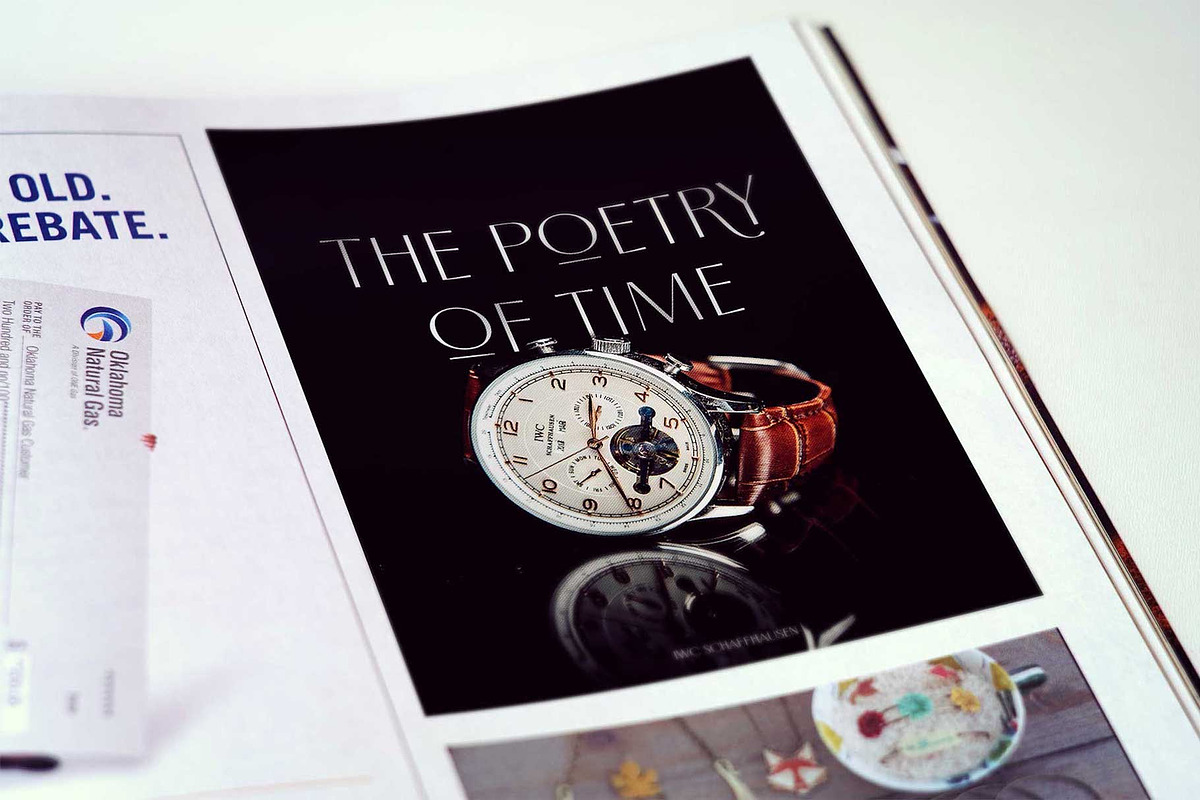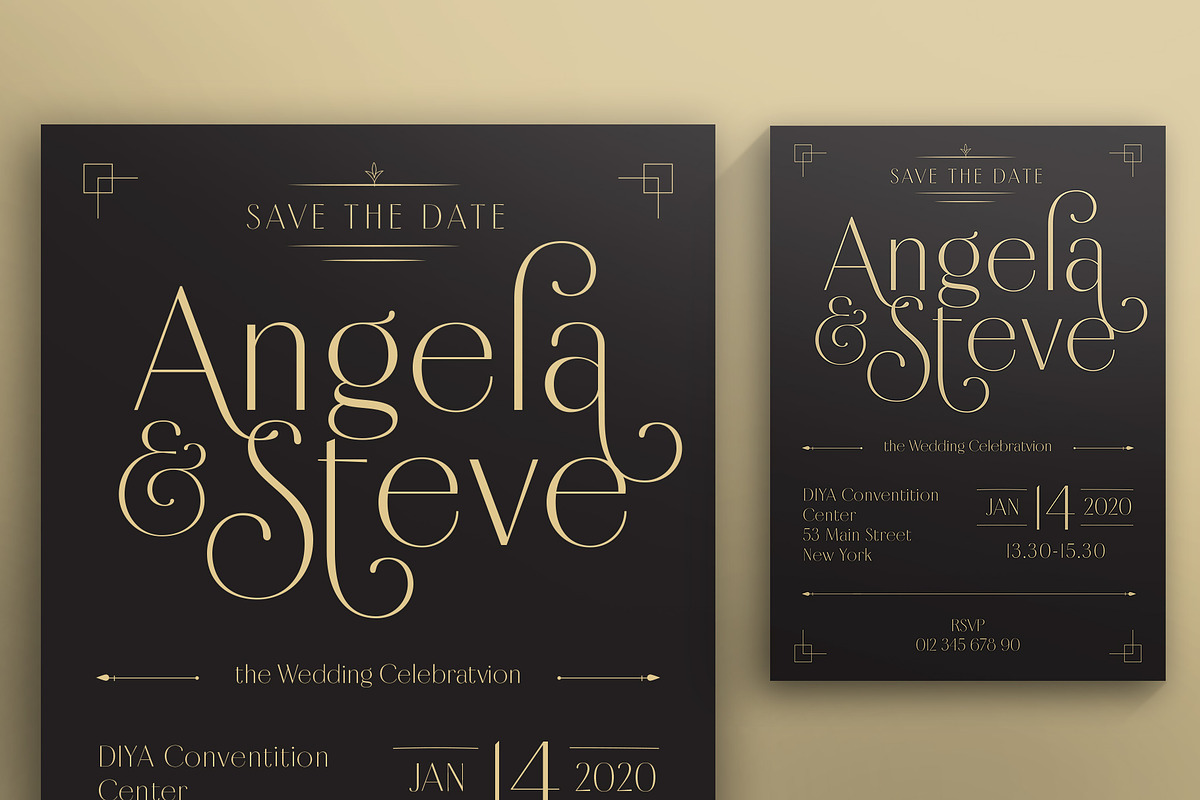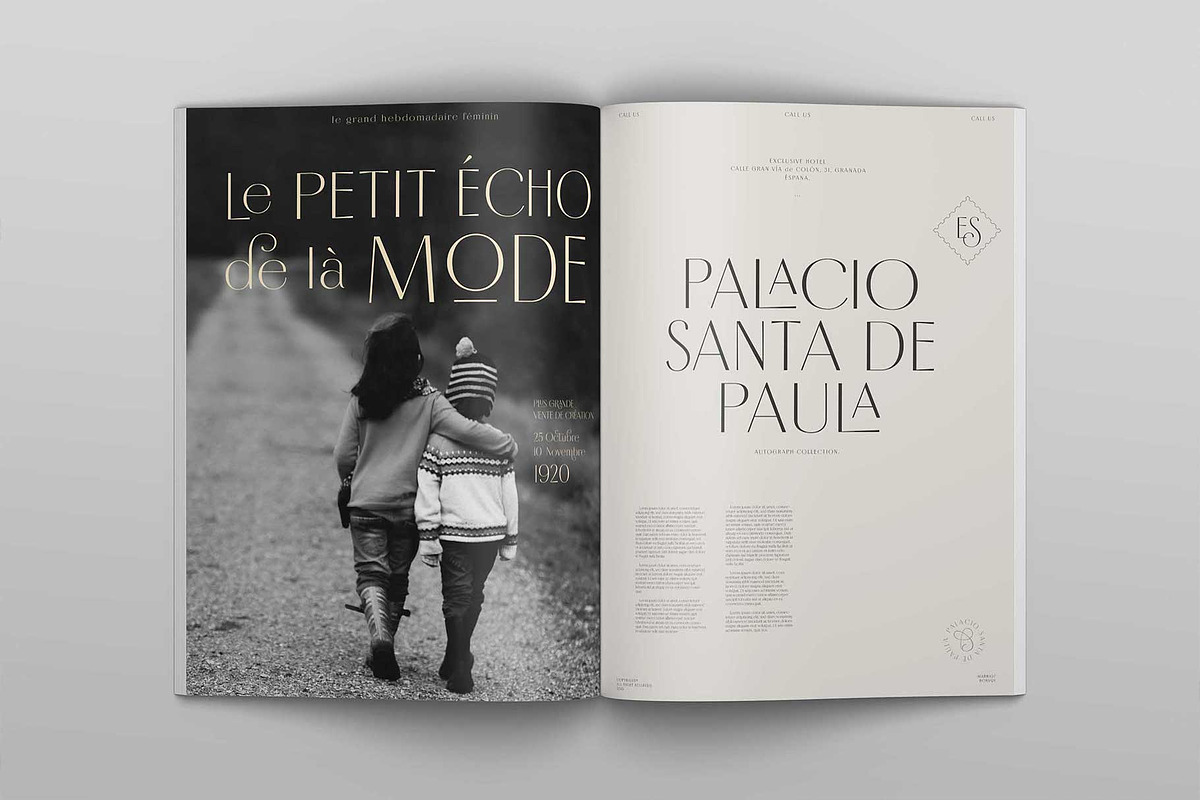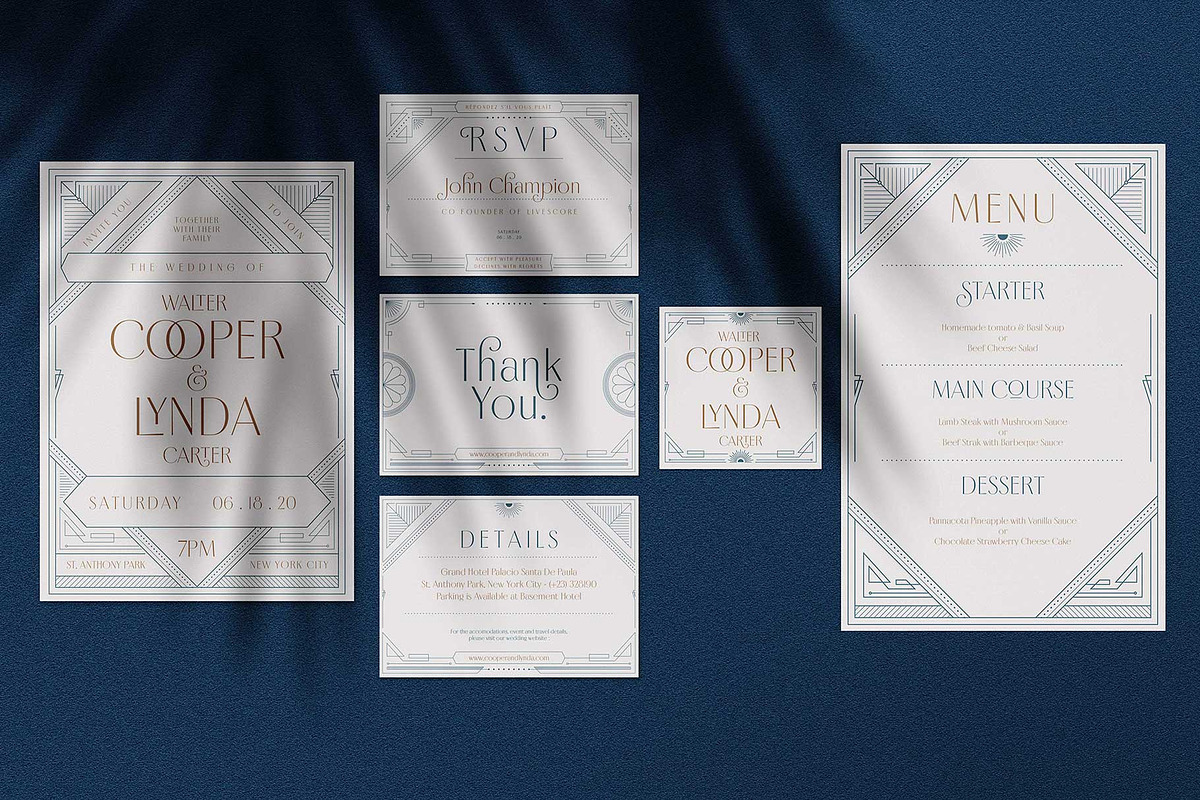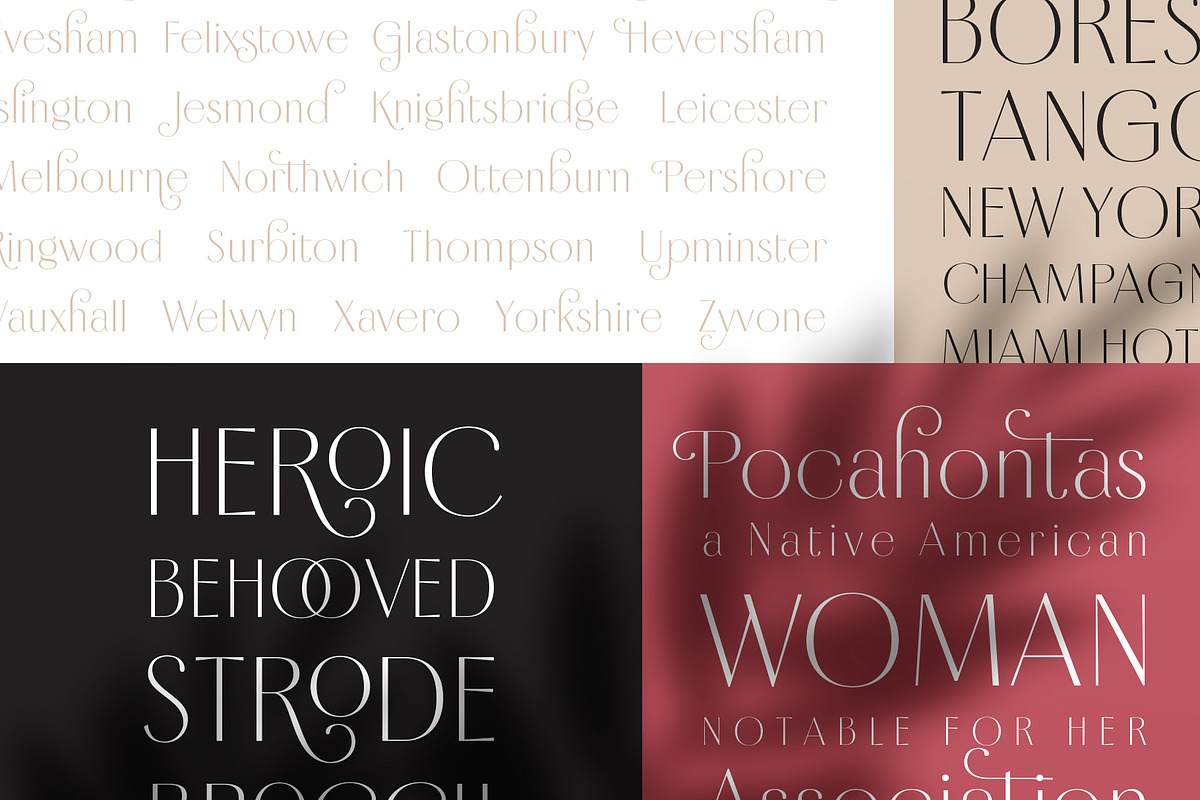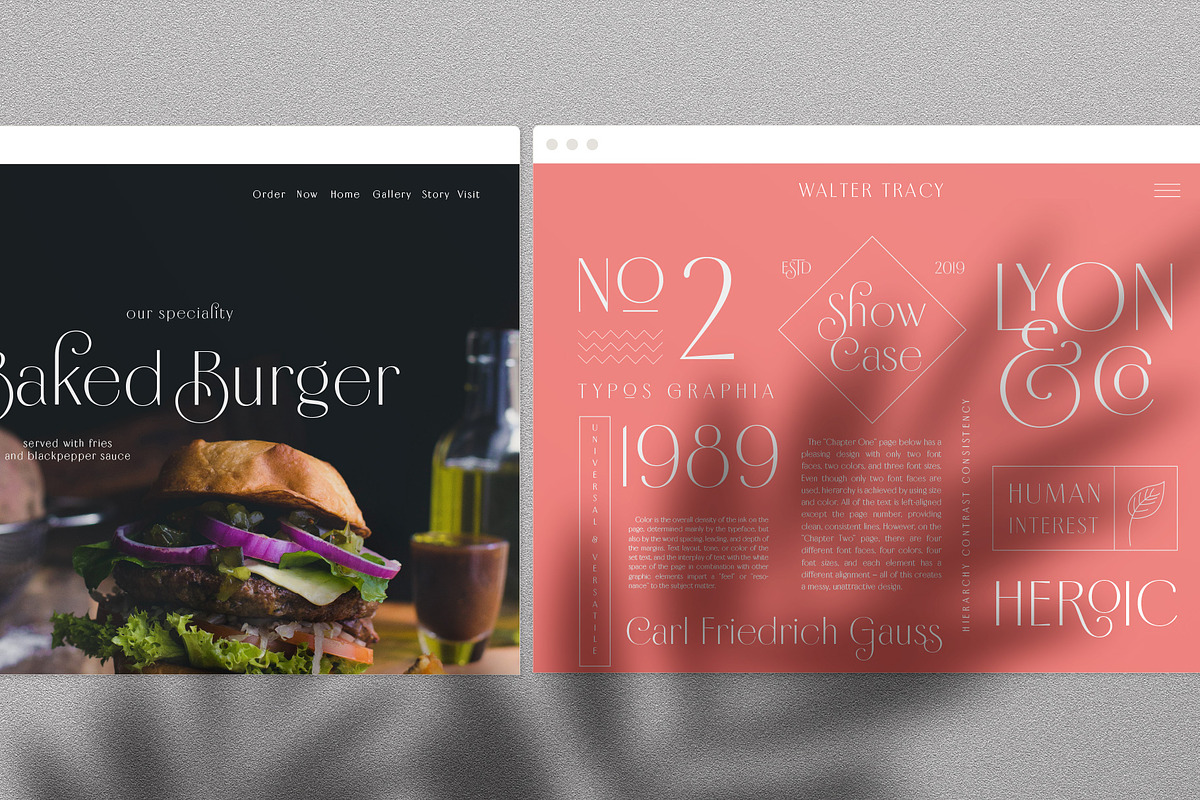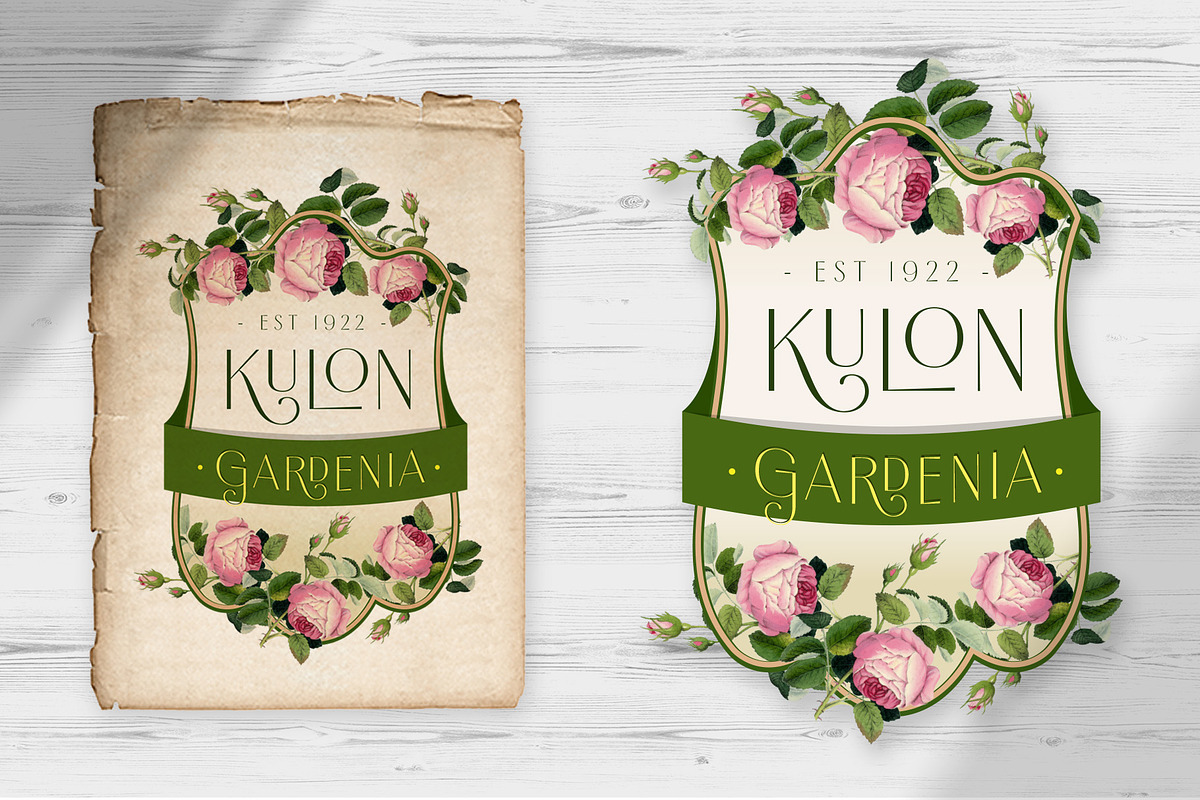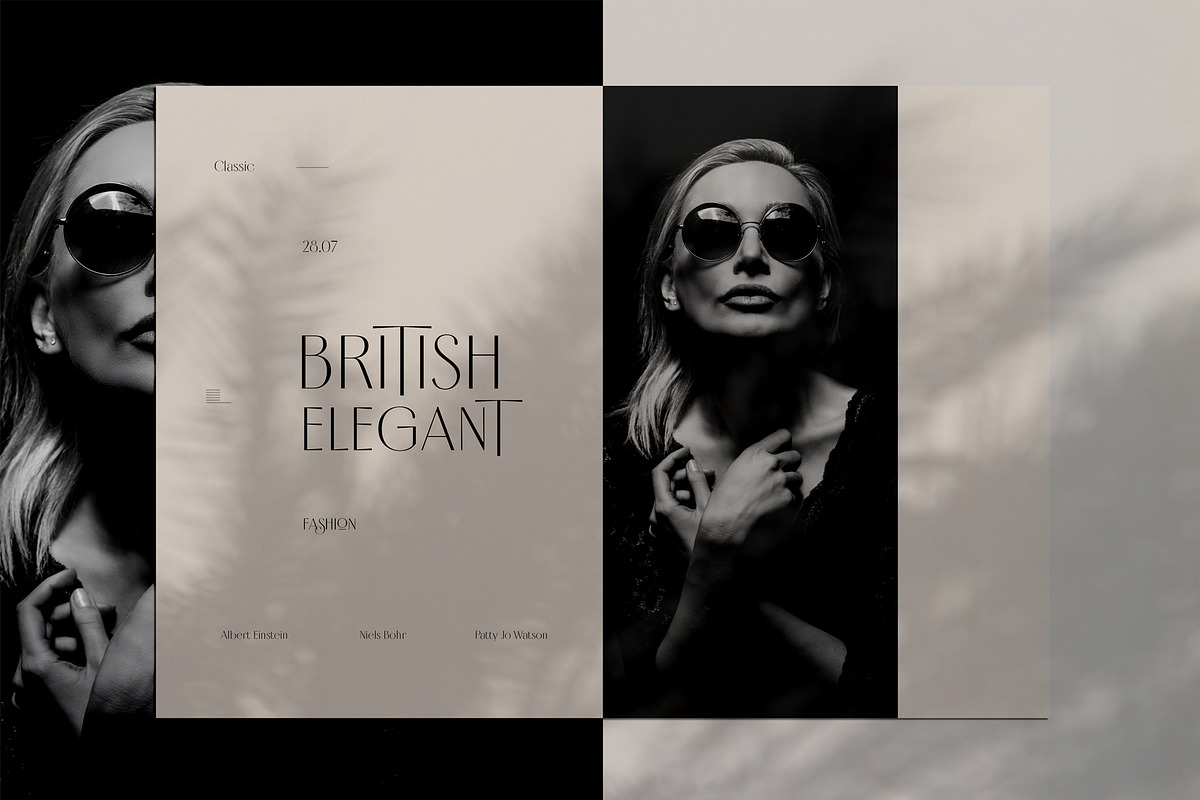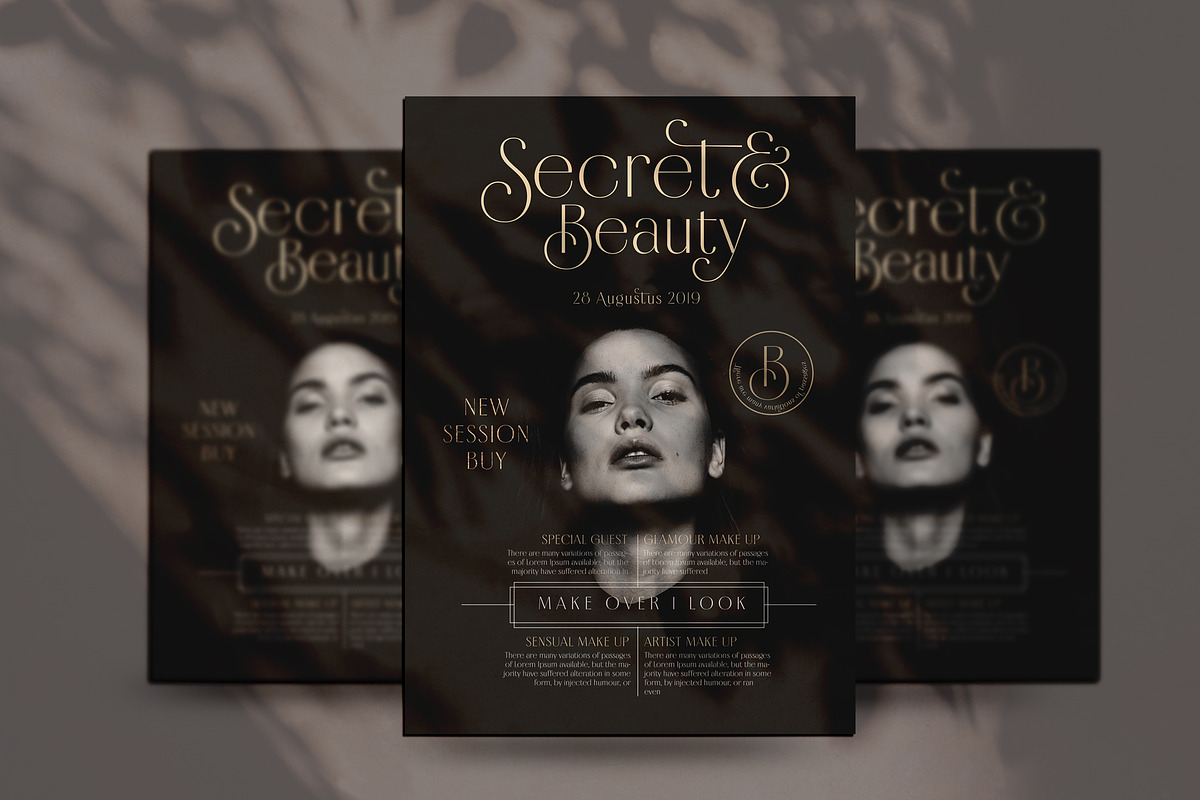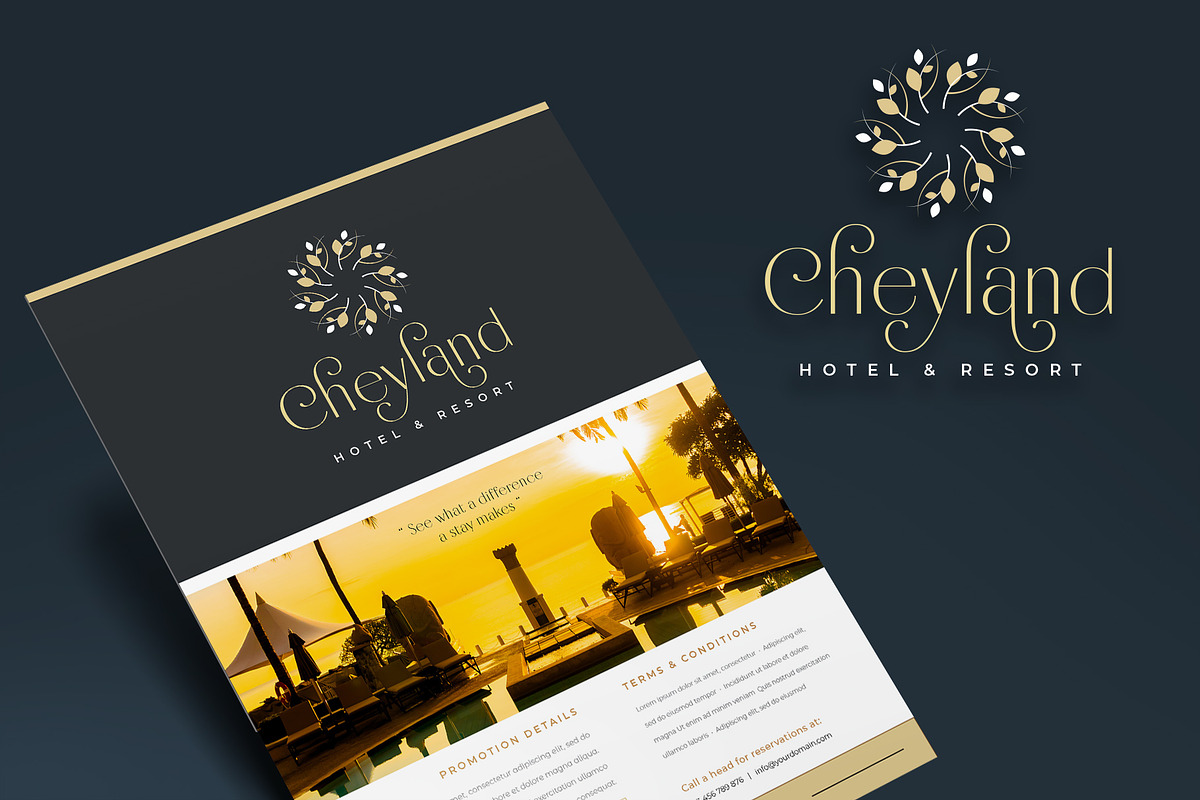
Borest - Elegant Roman Sans Serif
Borest, A new carefully crafted roman sans serif fonts. The Ideas of this fonts are from wide range of reference, from vintage, classic, art deco, until the modern era. So the looks of this fonts must be in the wide range of the reference above. It’s Versatile and Luxury feel that you get in Borest Typefaces. As you can see our creation on the display such as Branding, Header, Logotype, Poster, Magazine, Packaging, Wedding Invitation with art deco style, and etc. It shows that Borest can accommodate various design style.
Borest comes with OpenType Features. such as Stylistic Alternates as an Ascender swash and Descender Swash and Ligatures. Every glyphs for alternates are curated for the best and possible without eliminate characteristic of this fonts.